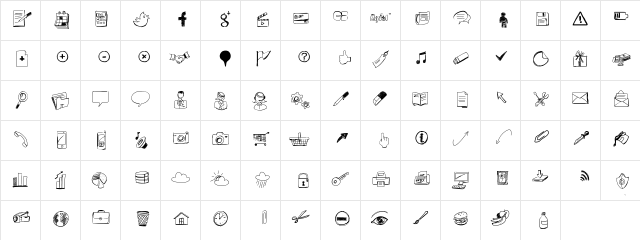
SketchIconsbold Medium
Design Context for SketchIconsbold Typeface
SketchIconsbold is a composed and adaptable typeface that performs quietly and consistently across a wide range of design contexts. Its bold stroke weight gives it real presence on the page.